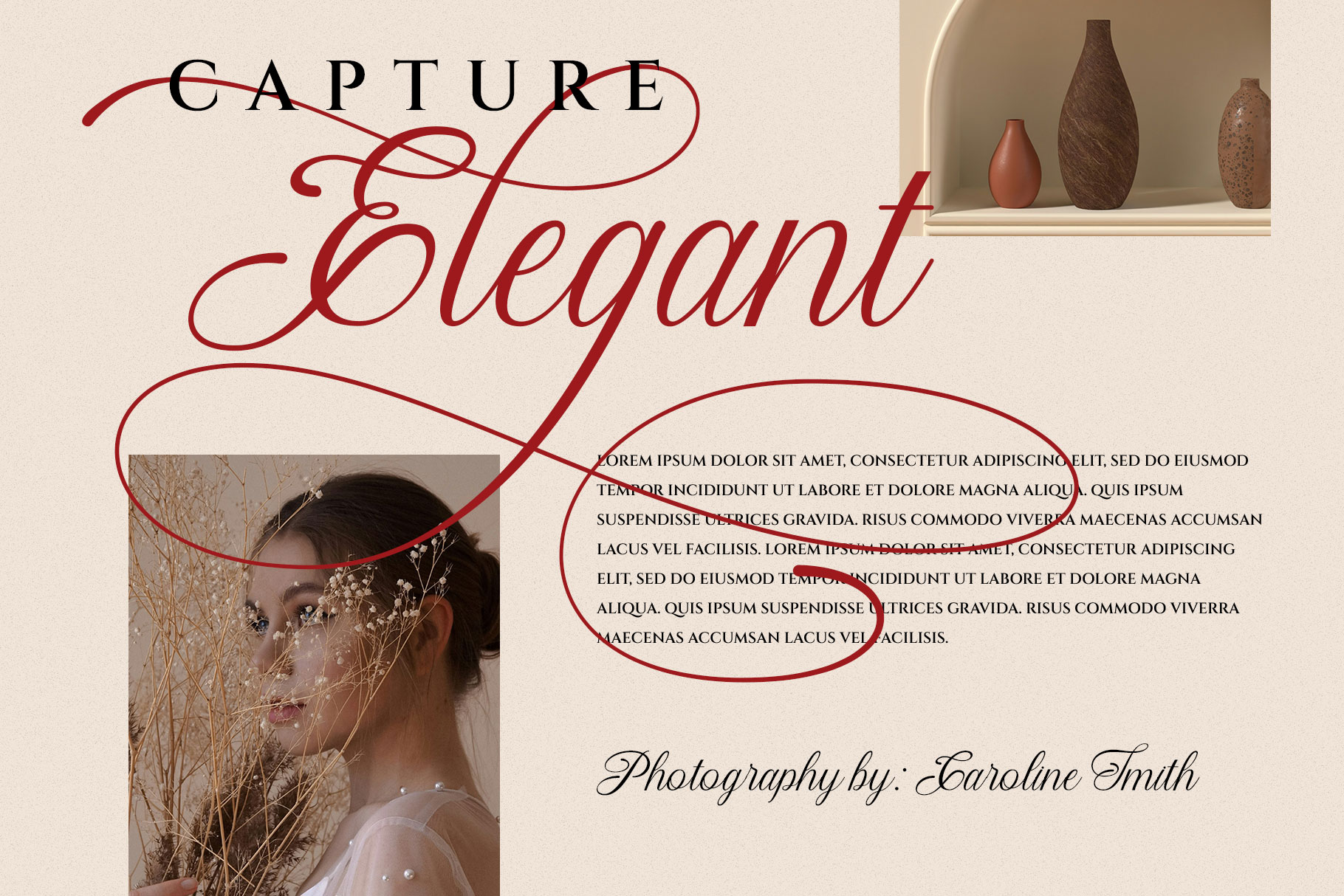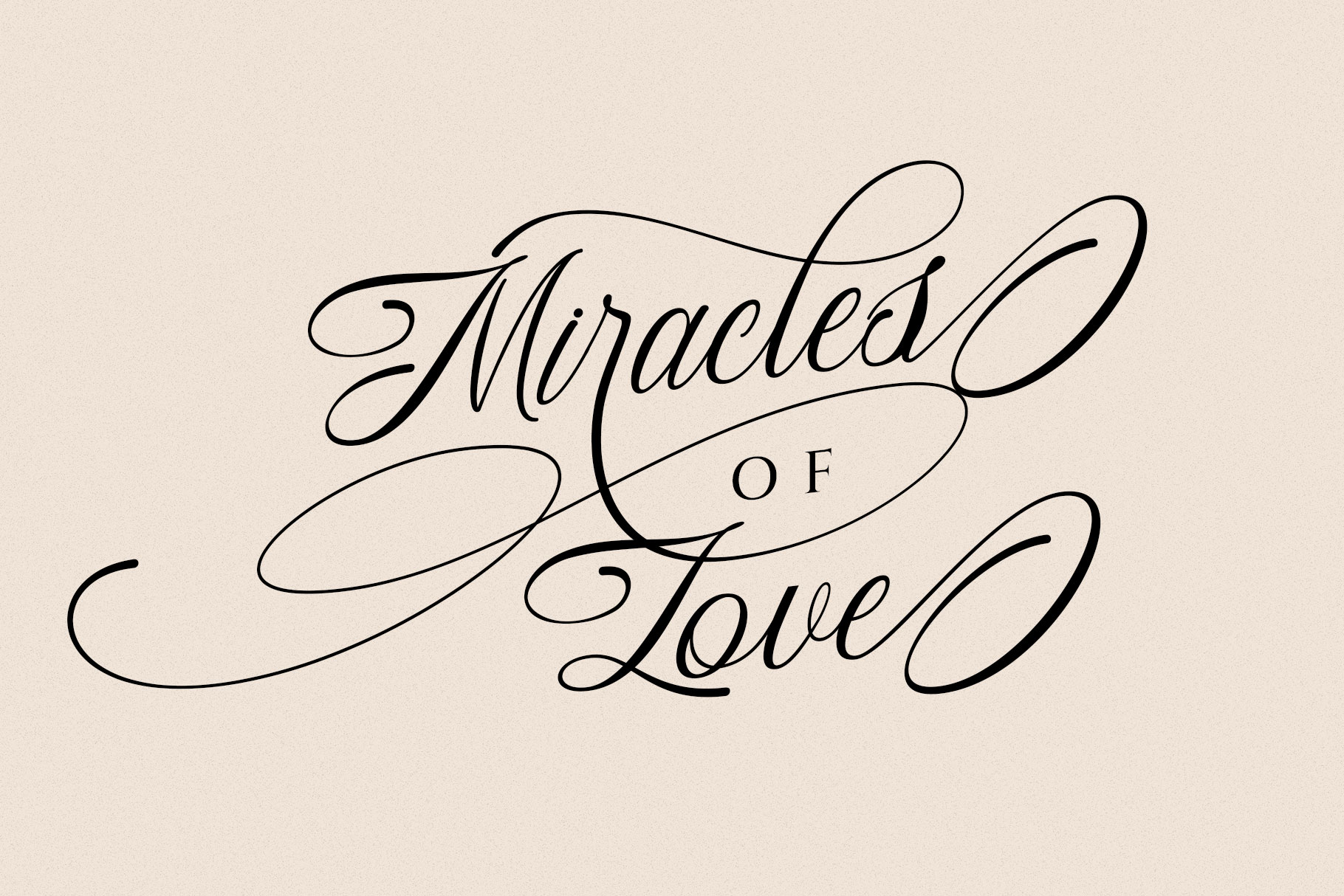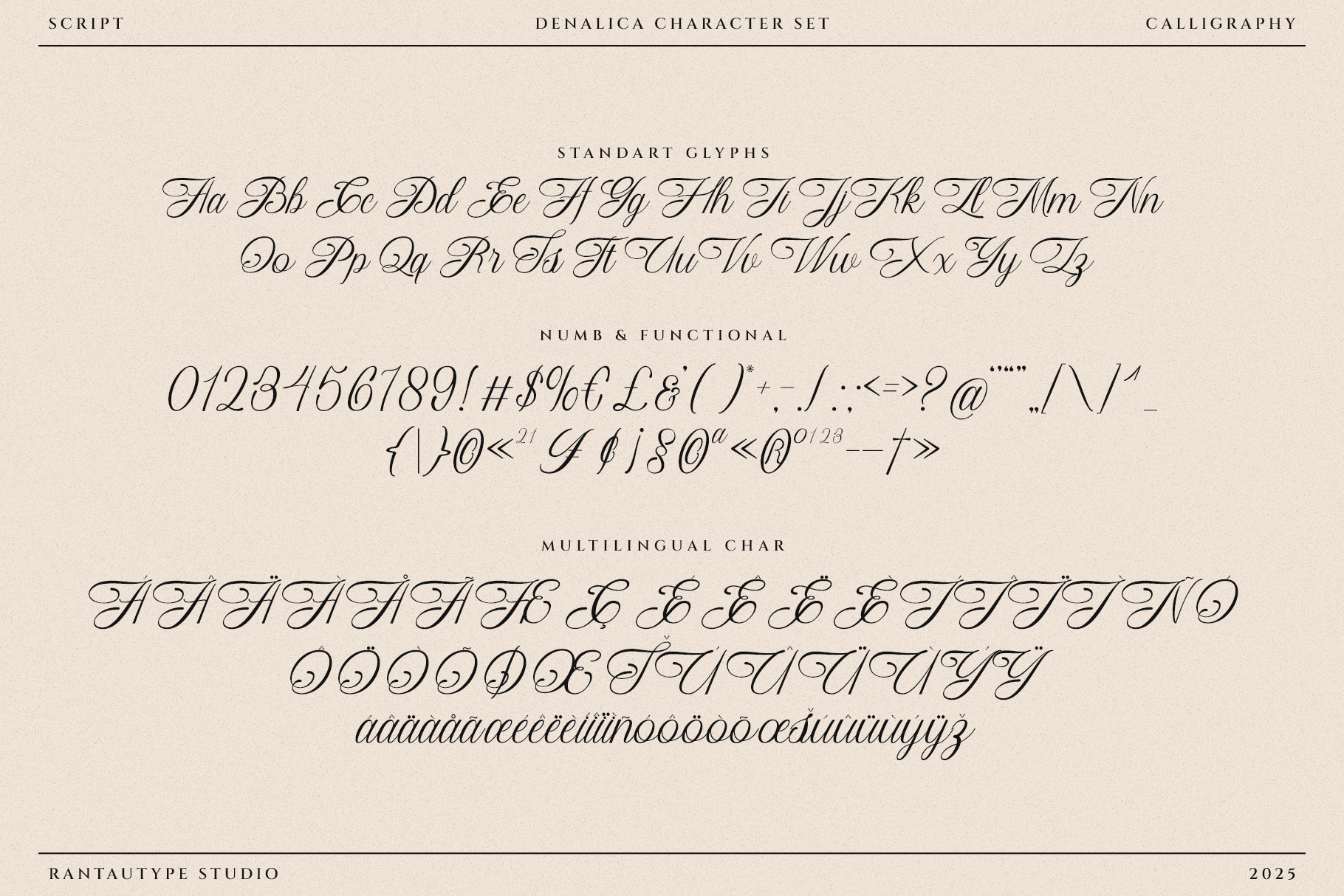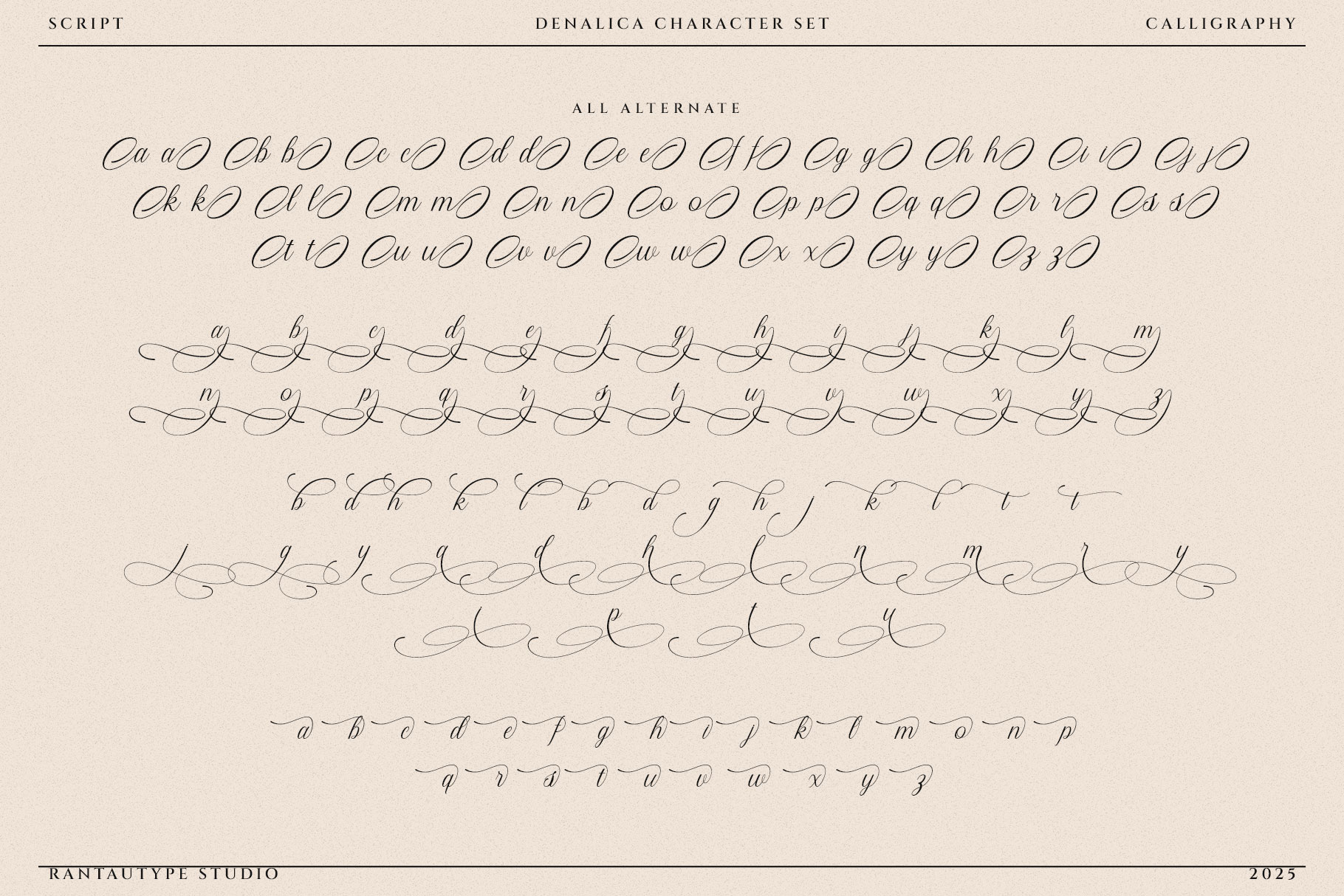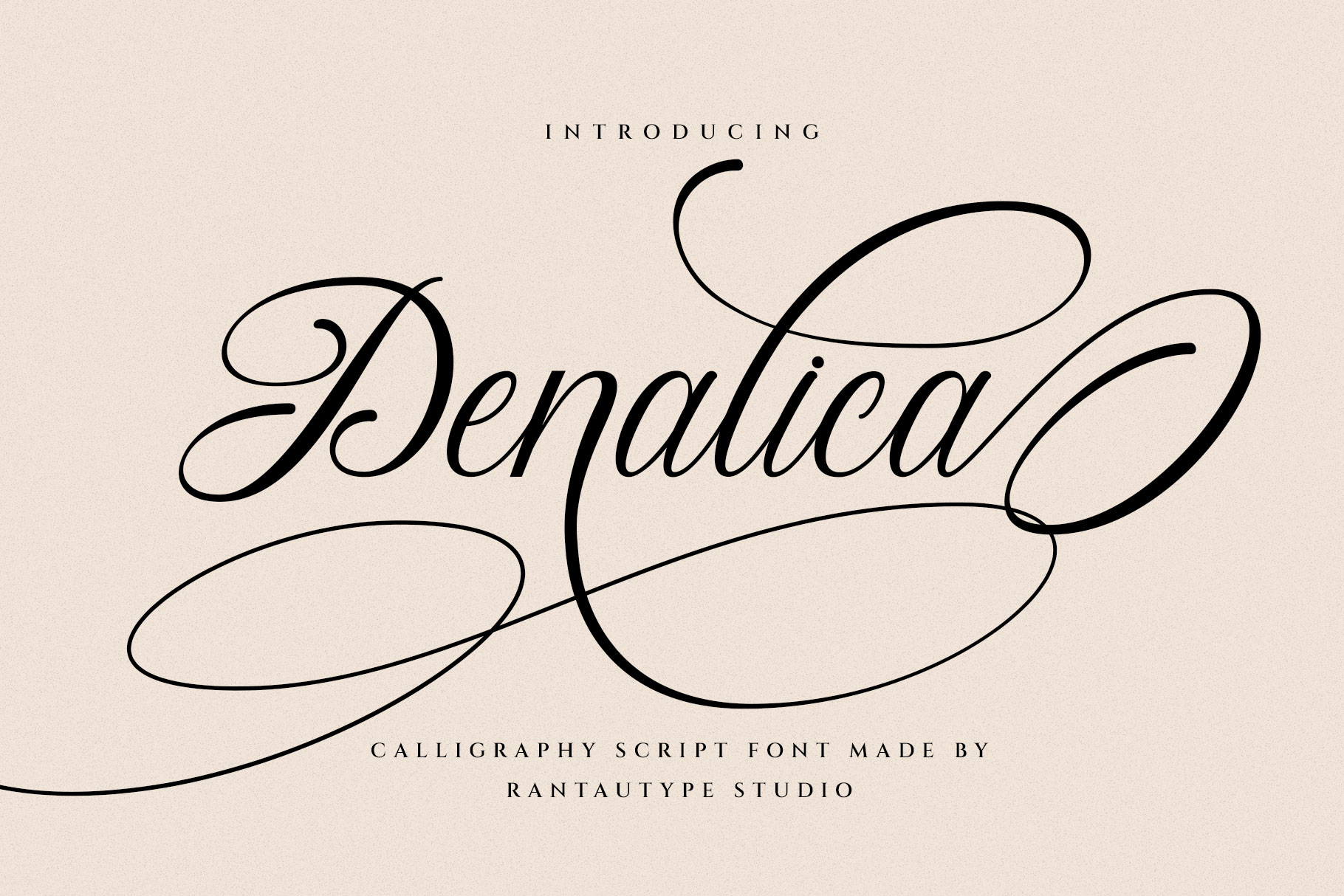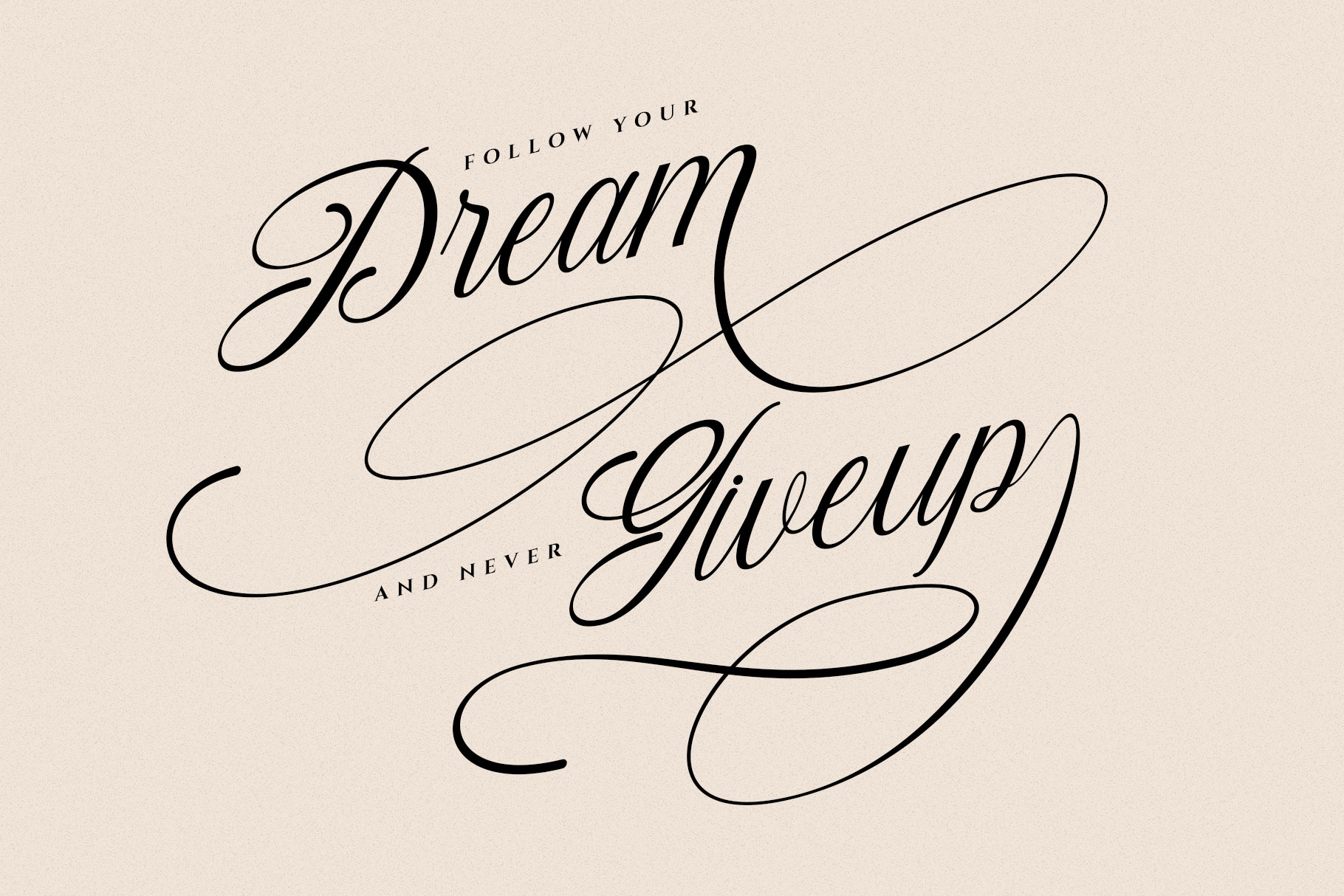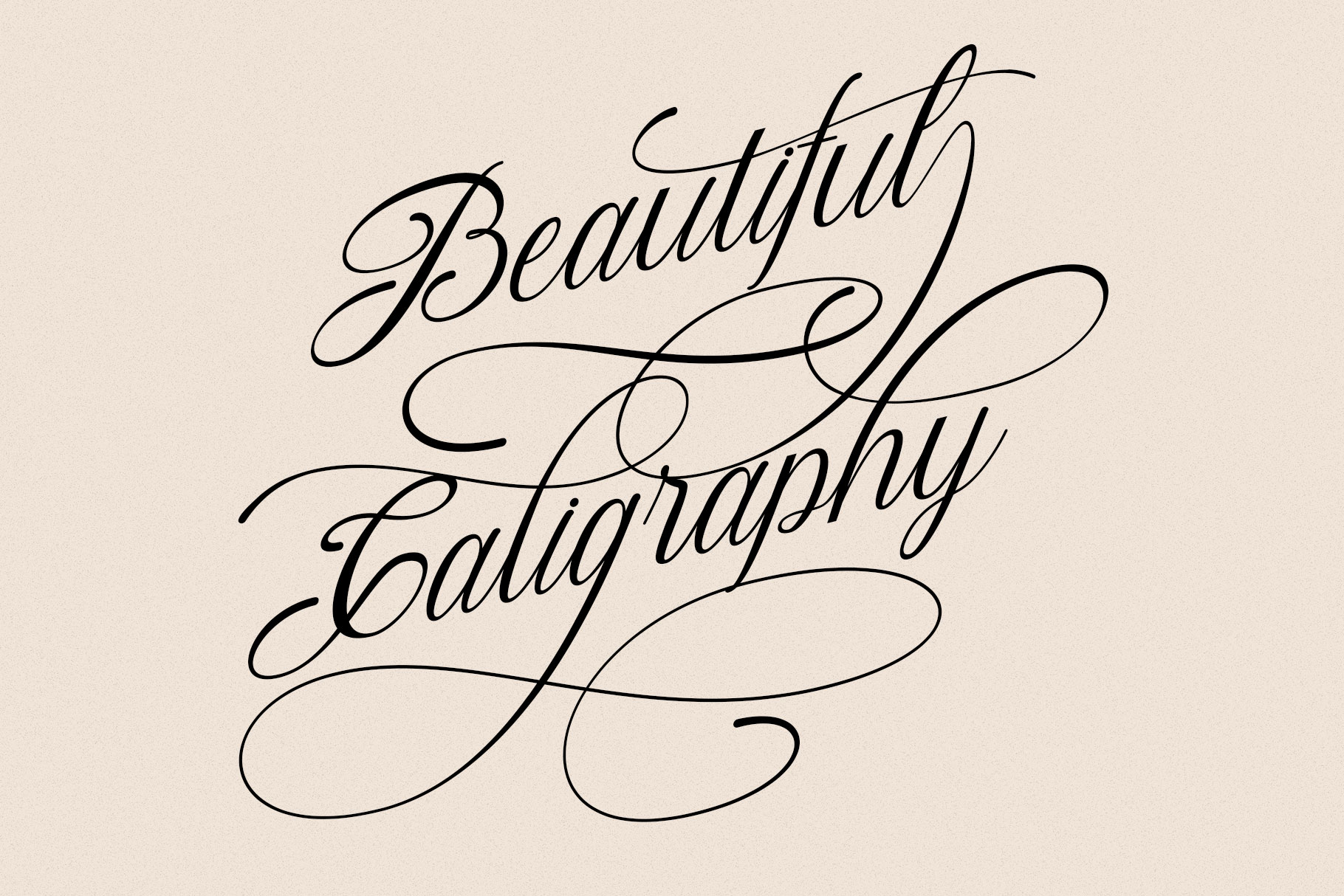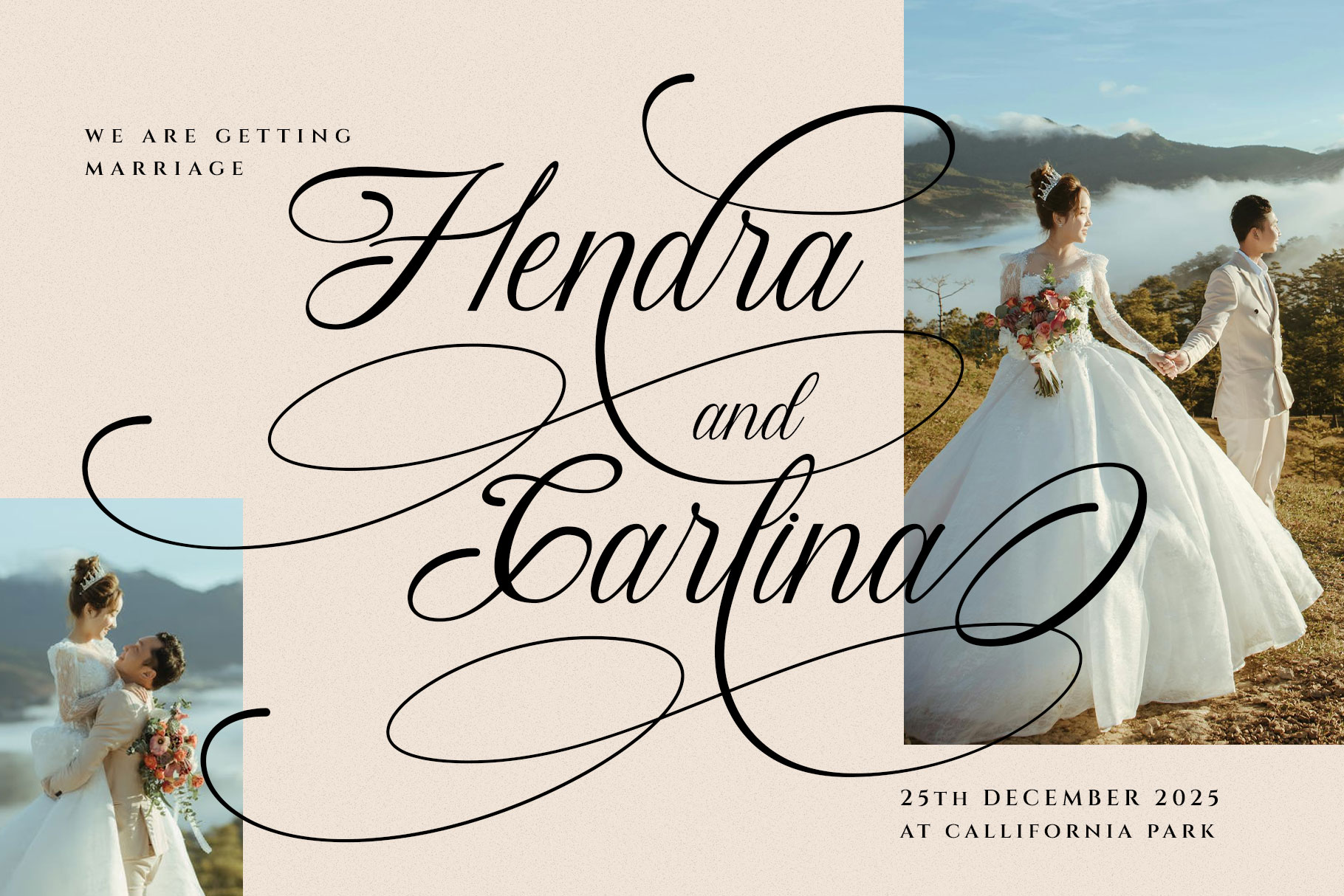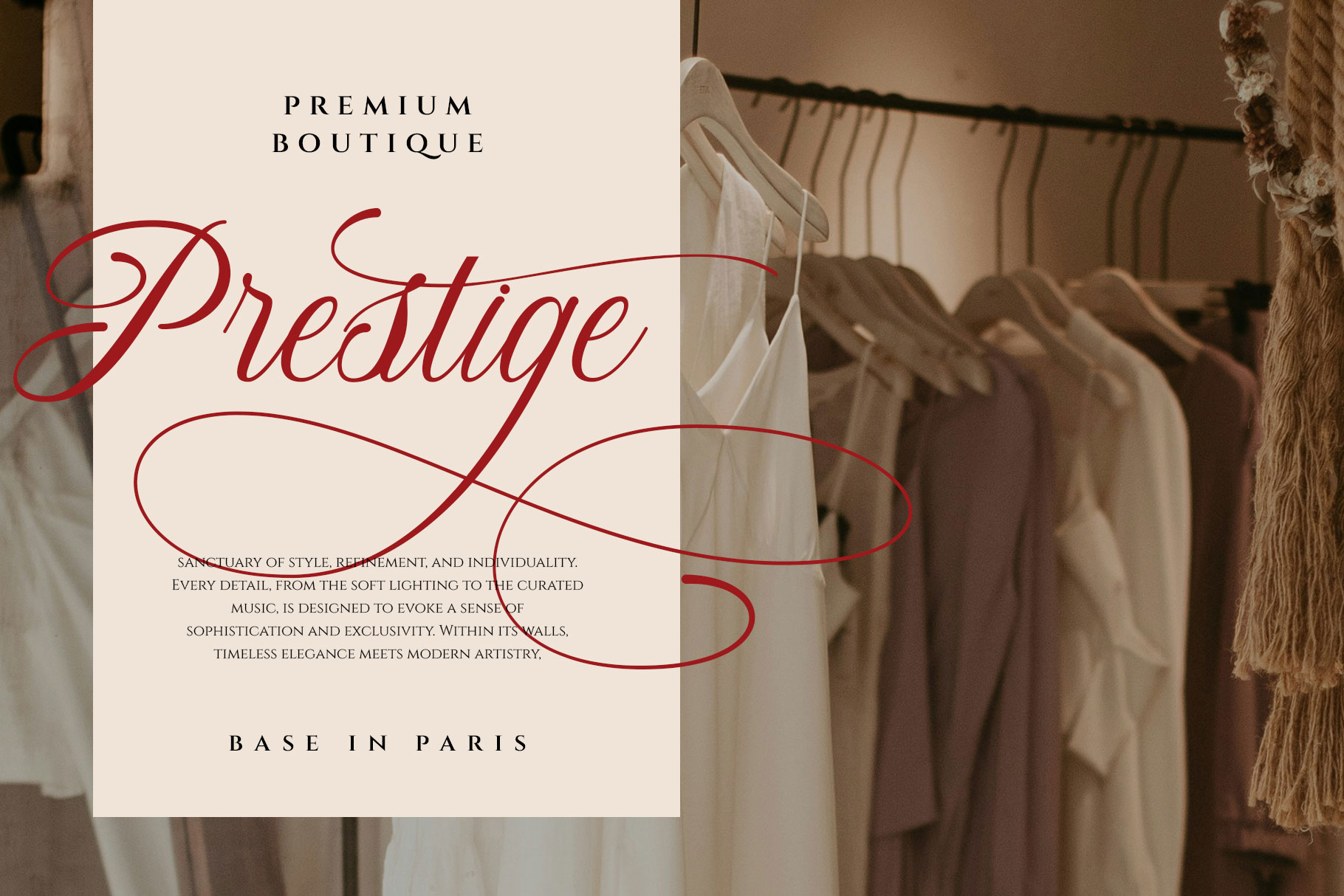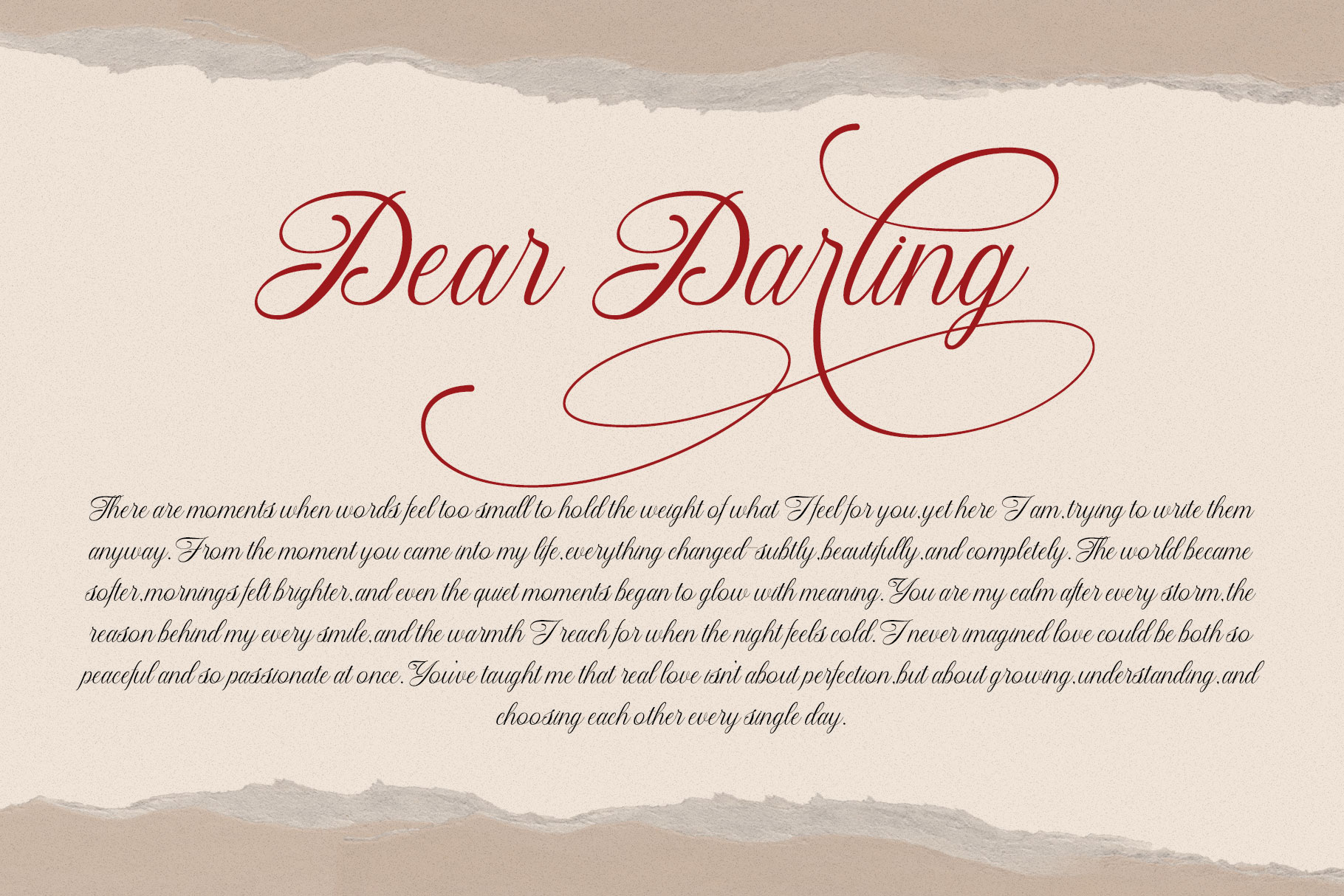
Denalica Calligraphy Script Font
Denalica is calligraphy script font embrace elegance and grace, designed to bring timeless charm and sophistication to any creative project. Inspired by the art of traditional handwriting, this font captures the fluid motion of a skilled pen stroke, with every curve and flourish crafted to perfection. It reflects the delicate balance between art and precision each letter flowing effortlessly into the next, creating a harmonious rhythm that feels both romantic and refined.
Denalica is a perfectly choice for any creative endeavor, creating, modern, lifestyle design such as logotype, title, cover, branding, invitations, wedding designs, display and magazine, social media posts, advertisements, printed quotes, product packaging, corporate brand, product designs, labels, photography, watermarks, special events and any other project with modern touch.